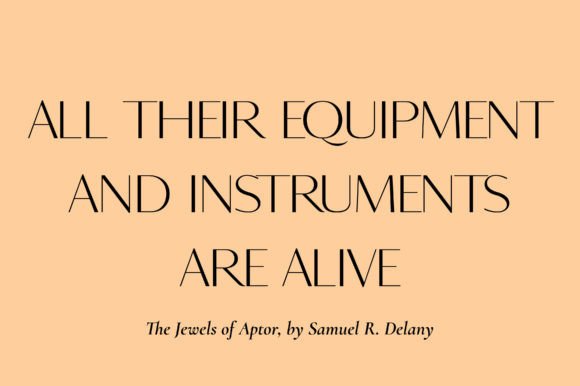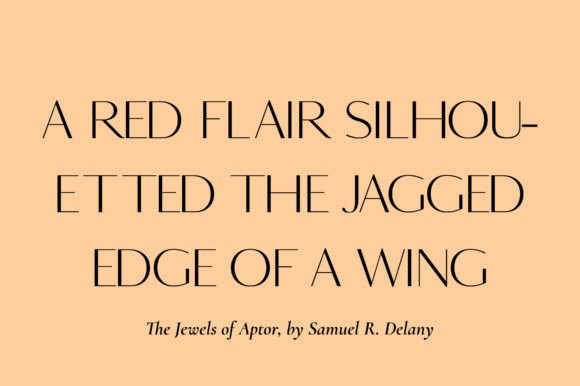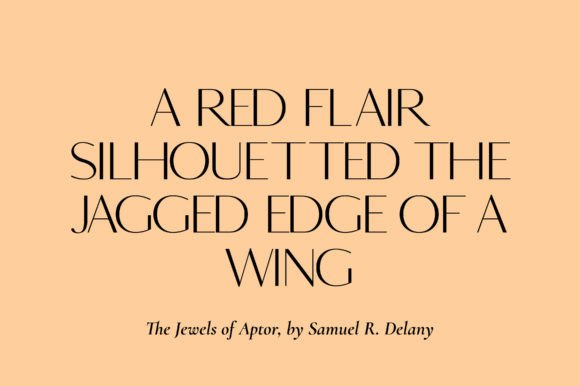
Introduction to Poolie Font
Have you ever stared at a blank canvas, waiting for inspiration to strike? It’s that moment when the perfect design element can make all the difference. For designers, finding the right font can be a game-changer. That’s where the Poolie Font comes in – a minimalist and modern sans serif typeface that embodies elegance and sophistication.
With delicate lines and refined curves, Poolie Font seamlessly blends with any design style, from modern to classic. Its balanced letterforms ensure readability, while a range of weights provides endless possibilities for creative expression. Whether you’re working on a high-end marketing campaign or a personal project, Poolie Font is the perfect design resource to elevate your work. And the best part? It’s available for free download, making it an accessible high-quality font for designers of all levels.
- Unique and creative project font, ideal for designing eye-catching graphics and visuals
- Perfect for designing logos, icons, and other visual elements that require a unique and creative touch
Honest Review: Poolie Font
I recently had the chance to work with the Poolie Font, and I have to say it’s been a game-changer for my creative projects. The font’s unique design makes it perfect for adding a touch of whimsy to any project.
- Unique and playful design
- High quality and crisp lettering
Limitations: ⚠️ One thing to keep in mind is that the Poolie Font may not be suitable for all types of projects – it’s definitely best suited for more creative or whimsical designs. Additionally, the font may not be as versatile as some other options on the market.
Overall impression: I’m thoroughly impressed with the Poolie Font and would highly recommend it to anyone looking for a unique and high-quality font for their design projects.